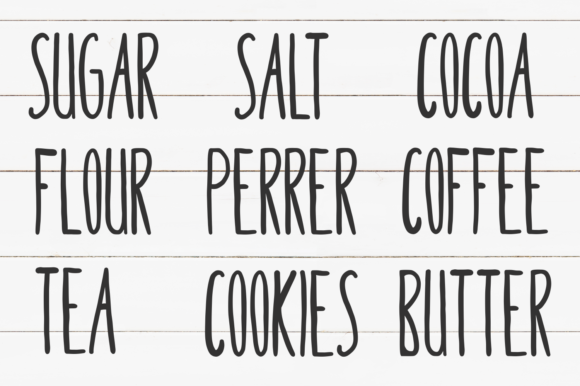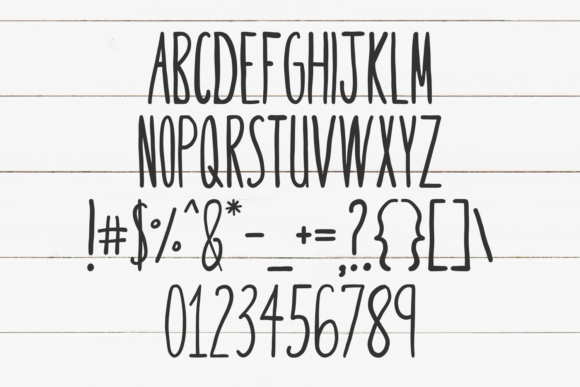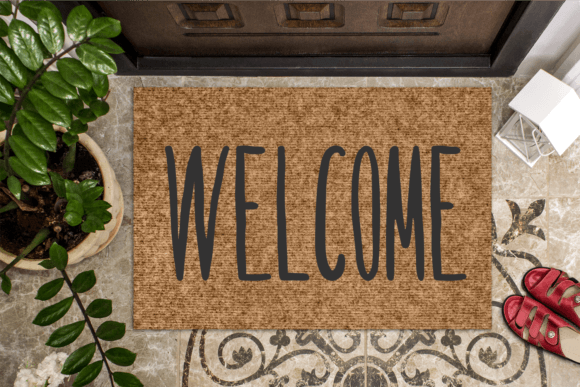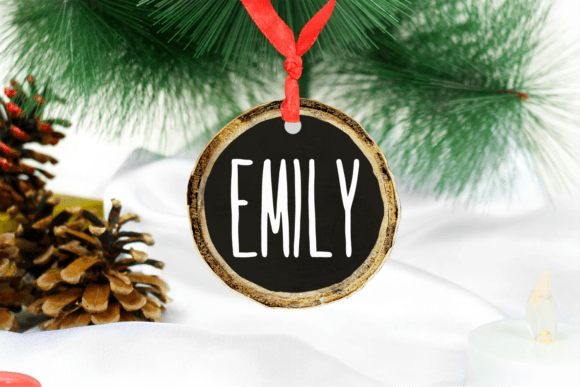
Introduction to JP Skinny Tea Font
JP Skinny Tea is a minimal and tall sans serif font.
Key Features of JP Skinny Tea Font
Why Choose JP Skinny Tea Font?